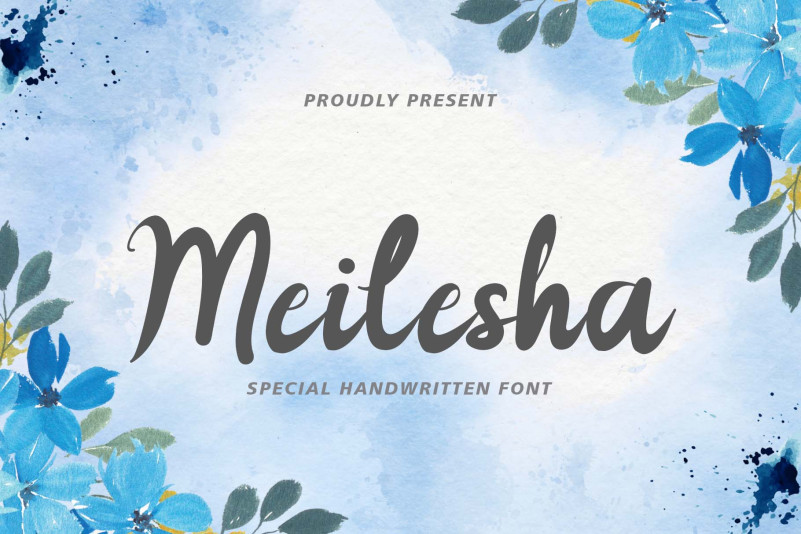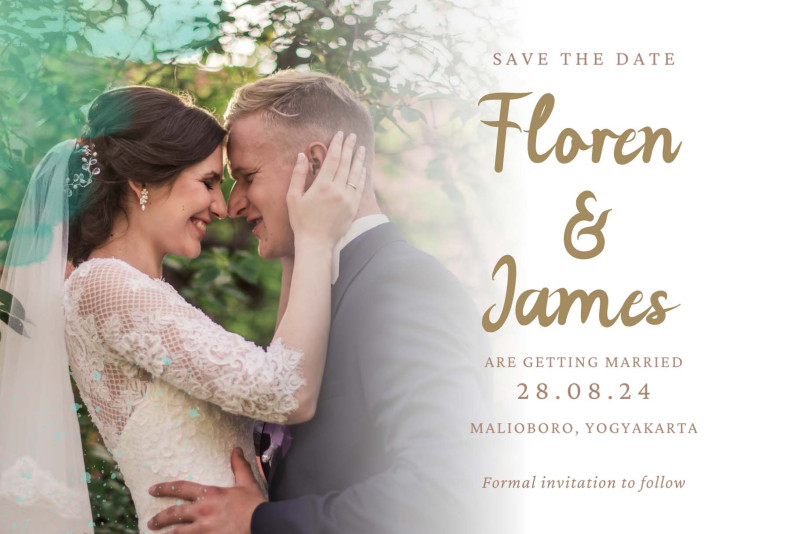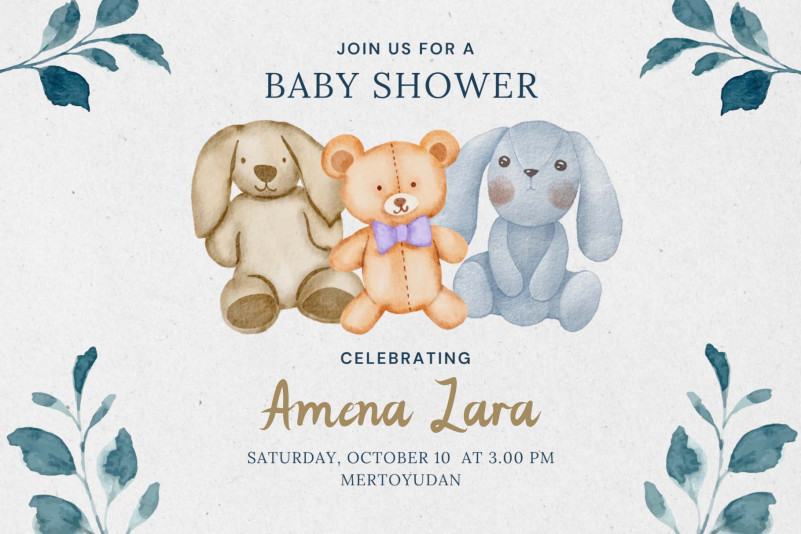
Meilesha Font
Meilesha Font is a unique and beautiful handwritten font. This font is equipped with uppercase, lowercase, numerals, punctuations, and multilingual support. It is suitable for invitations, weddings, ornaments, logos, banners, posters, prints, branding, and others.